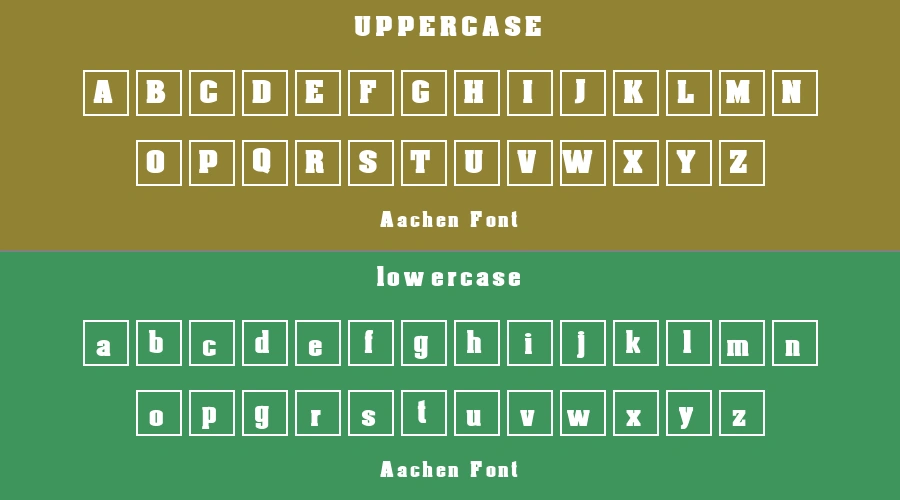
About Aachen Font
Aachen Font embodies typographic excellence through its masterful combination of teardrop terminals and consistency. Created for magazine layout, this typeface delivers exceptional adaptability and brand differentiation across all applications. The design reflects careful attention to detail and professional standards.
Advanced capabilities include distinctive engineered curves and versatile lining figures, giving designers creative control. When used in specification lists, Aachen Font exhibits remarkable microfilm readability. The harmonious balance between stroke modulation and cultural context sets this typeface apart.